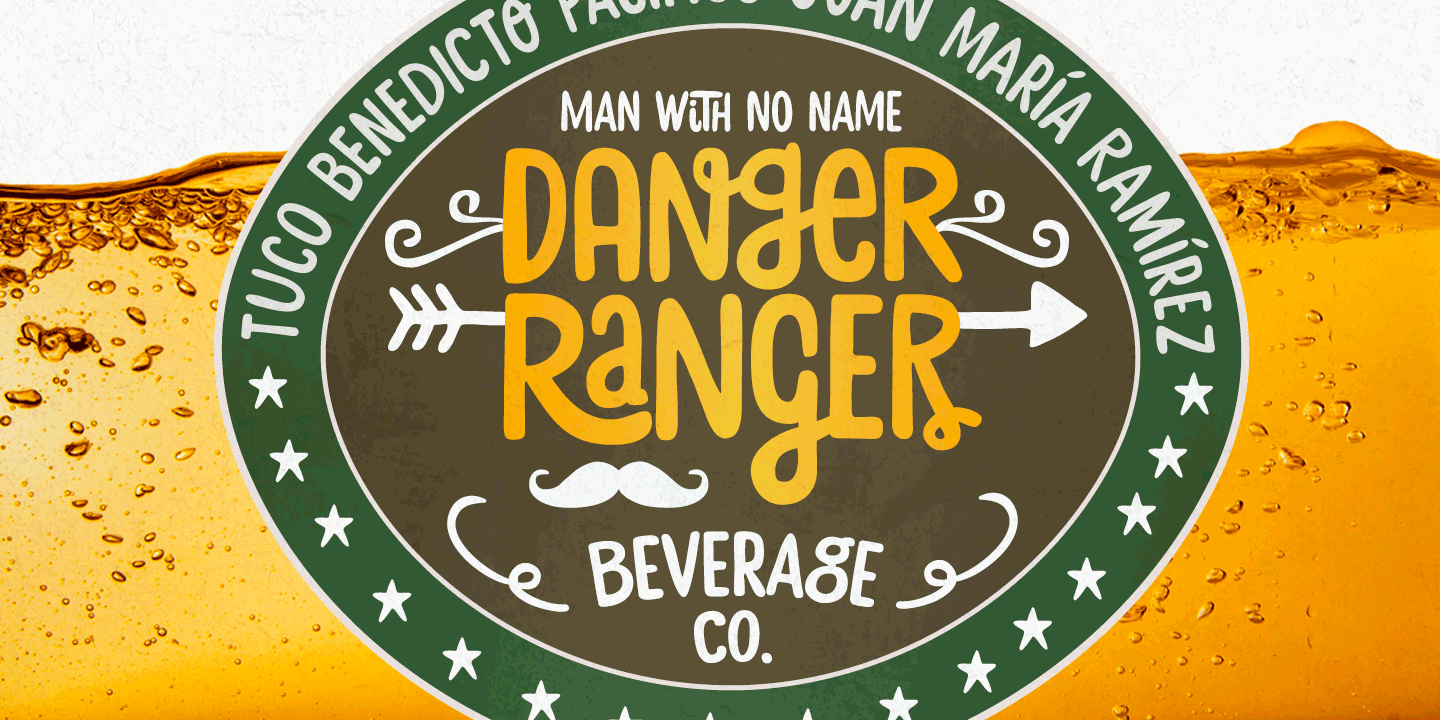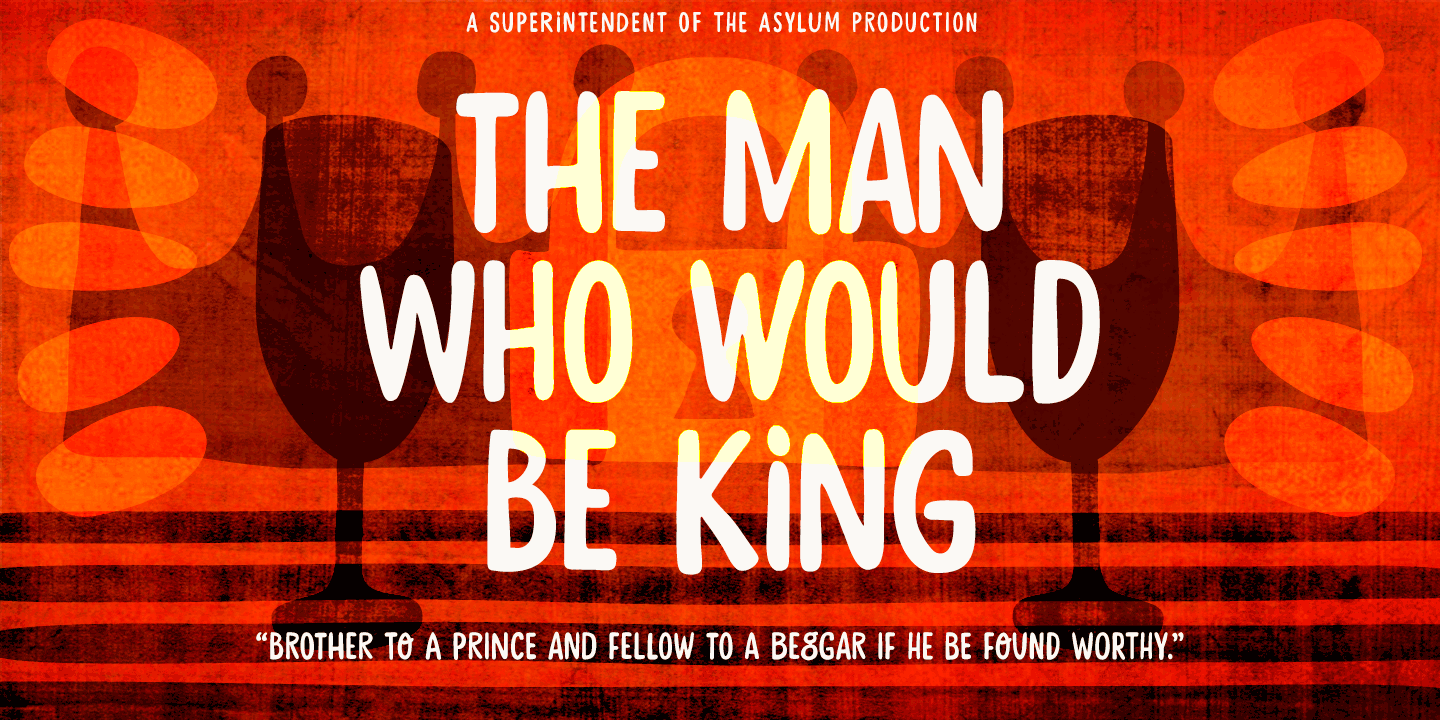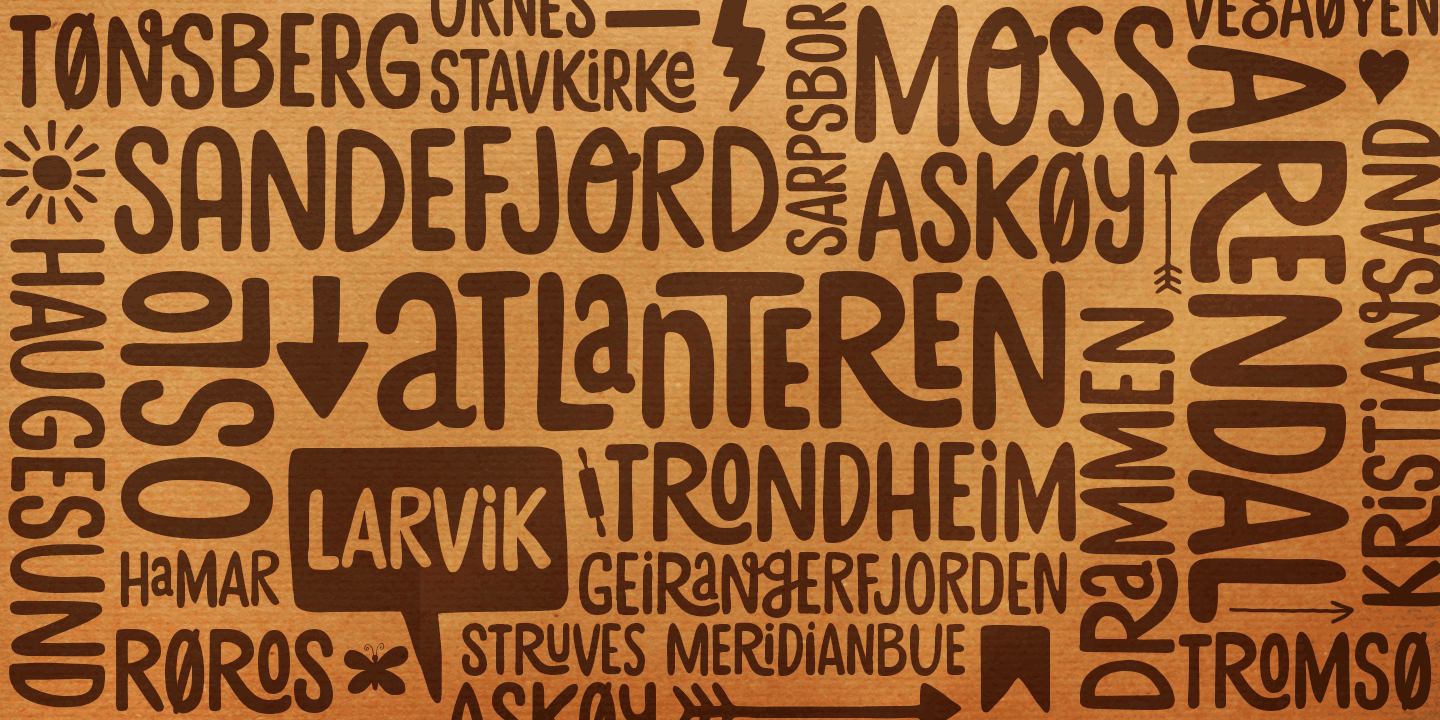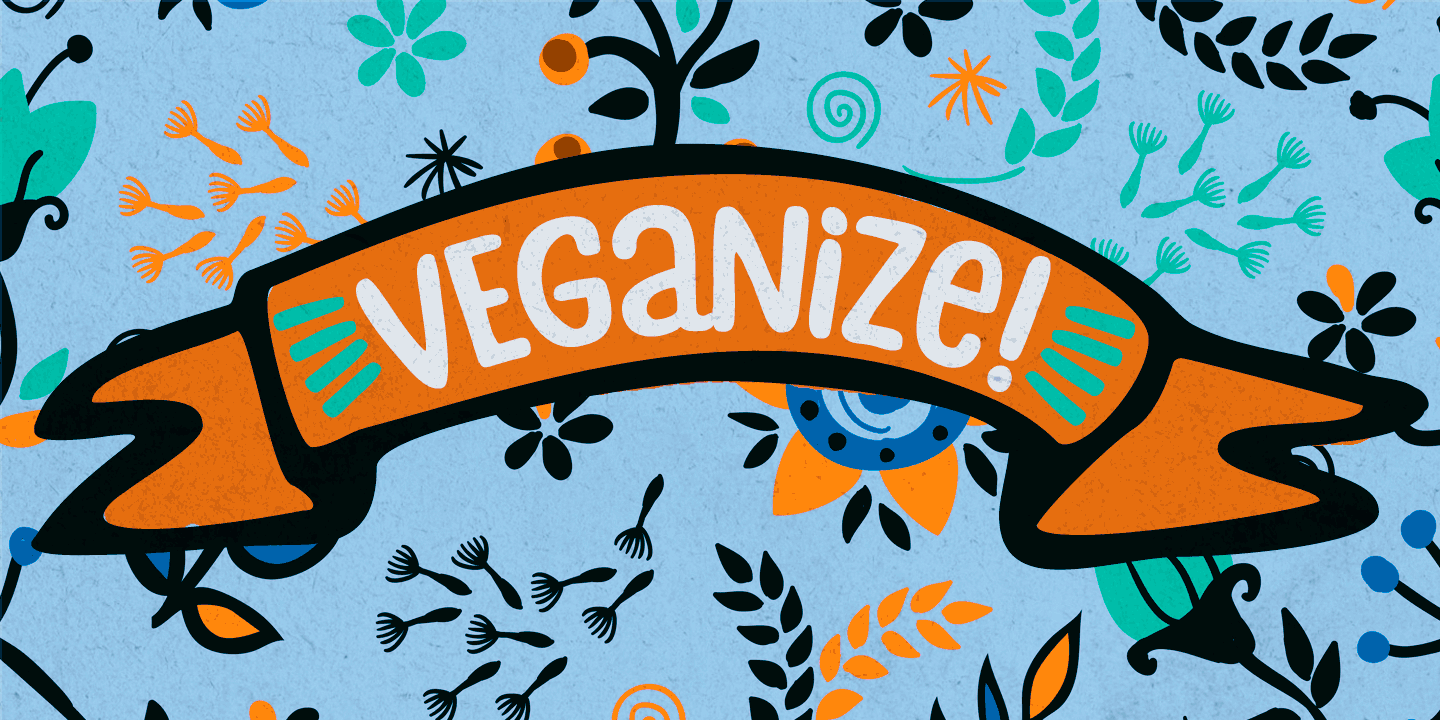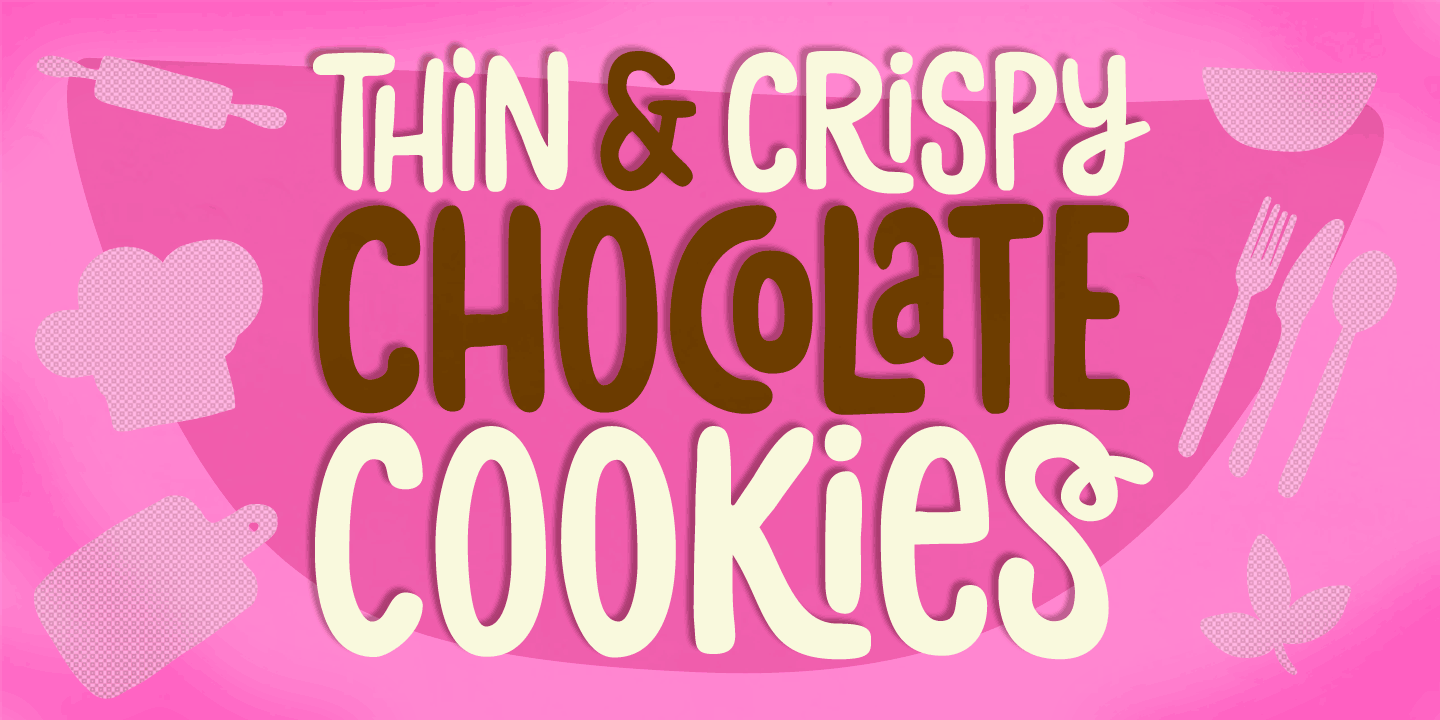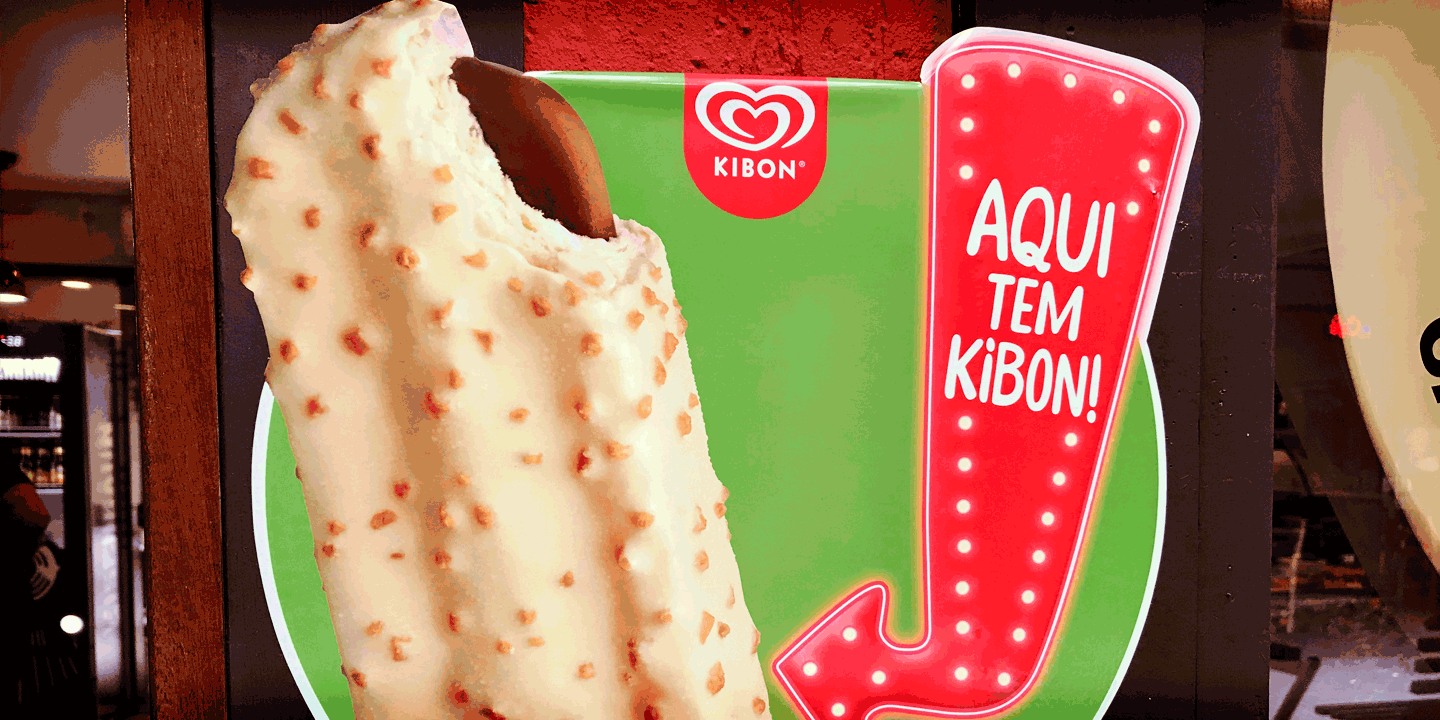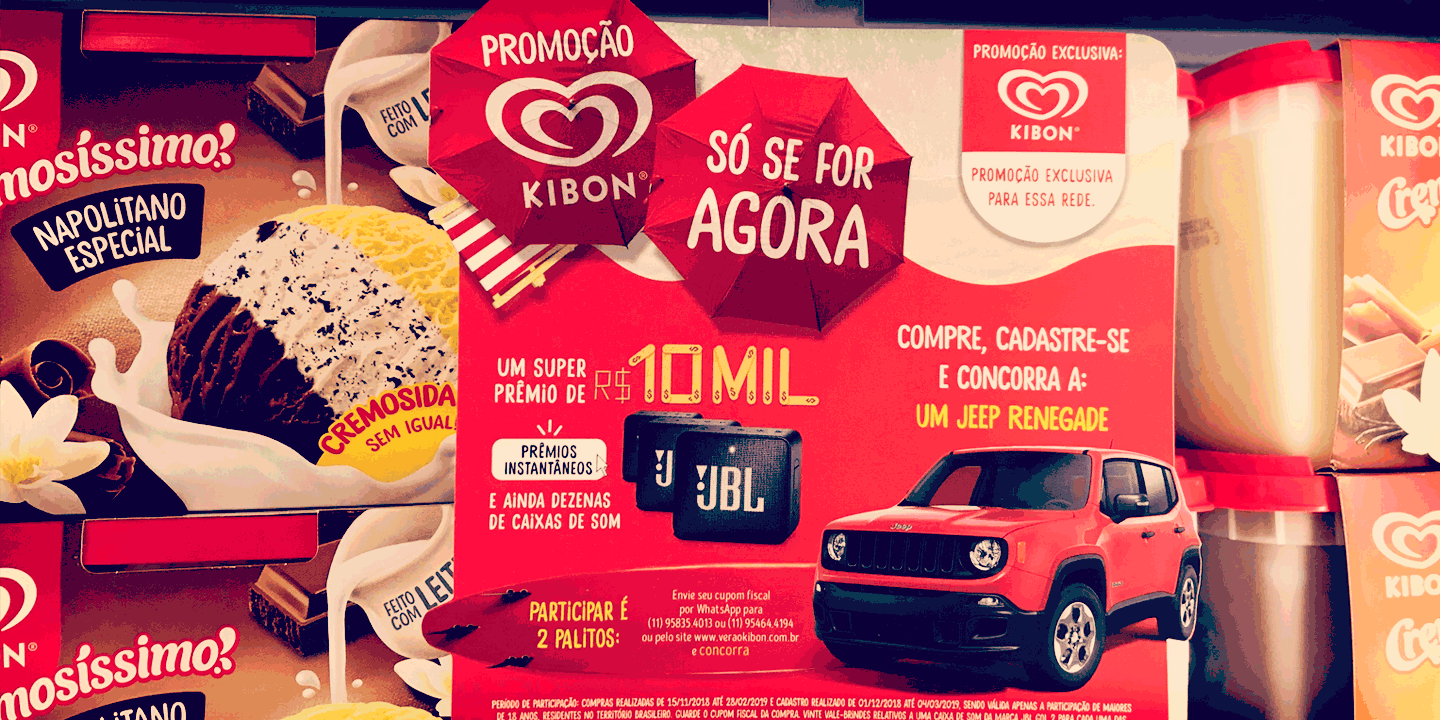
About the StickARound Font
About Stick-A-Round Font Family Stick-A-Round started as an attempt to domesticate the wild ​Daft Brush font. During the process, though, it begun taking its own shape and personality, with friendly rounded terminals, dynamic interlock pairs and lots of alternates. There are at least 4 variations for each letter and 2 for the numbers and ​for ​some punctuation marks, plus a​n extra​ set of stylistic alternates.
Besides showing up such a good humor​, this font brings a lovely mate loaded with handy ornaments to jazz up your designs. ​​Stick-A-Round, And ​Have ​Some ​Fun. I bet you will! Designers: Erica Jung, Ricardo MarcinPublisher: PintassilgoPrintsFoundry: PintassilgoPrintsDesign Owner: PintassilgoPrintsMyFonts debut: Oct 29, 2014 Stick-A-Round